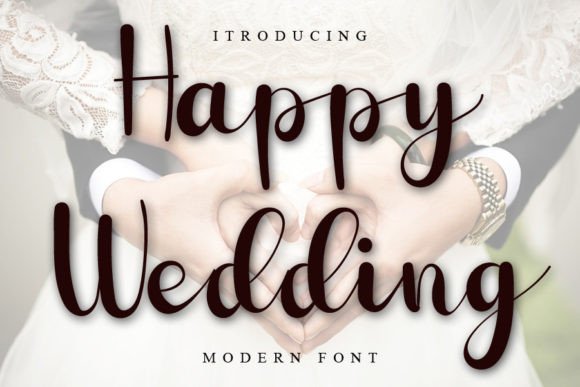
Adding a Touch of Love to Your Designs
Remember that moment when you saw your partner’s face light up after you proposed? The excitement, the joy, and the tears of happiness all came flooding back. It’s moments like these that make us want to create something truly special. Whether it’s a wedding invitation, a save-the-date card, or a heartfelt message, we want to make it perfect.
That’s where the Happy Wedding Font comes in – a fresh and beautiful handwritten script font that’s sure to add a touch of love to your designs. This lovely font is designed to bring a smile to your face and make your projects truly unforgettable. For designers, the Happy Wedding Font is a valuable asset, allowing you to create unique and personalized pieces that speak directly to the heart.
Key Features of Happy Wedding Font
- Unique Characteristics: Happy Wedding Font features elegant, cursive script with a touch of whimsy, making it perfect for wedding invitations, stationery, and other celebratory designs.
- Font Weight and Style: Happy Wedding Font comes in three font weights (Light, Regular, and Bold) and two font styles (Regular and Italic).
Designer Review: Happy Wedding Font
Overall, I think the Happy Wedding Font is a sweet and endearing choice for wedding invitations and other celebration materials. ✨ The font’s playful and cheerful vibe perfectly captures the joy and excitement of the special day.
The font’s key features include:
- Hand-drawn, whimsical feel that adds a personal touch
- Various ligatures and swashes to create a sense of movement and flow
- Support for multiple languages, making it a great choice for international weddings
- The font may not be the best choice for formal or traditional wedding invitations, as it has a more casual feel
- The font’s complexity can make it difficult to read at small sizes or in certain contexts
- The font does not include a wide range of punctuation and symbol options, which may limit its usability
Overall, I think the Happy Wedding Font is a lovely choice for those looking for a playful and whimsical font for their wedding materials. While it may have some limitations, it’s a great option for couples who want to add a personal touch to their celebration.
The Happy Wedding Font is ideal for wedding invitations, save-the-dates, and other wedding-related materials. To get the most out of it, use it in combination with other elegant fonts and design elements. Some common use cases include:
- Wedding invitations and save-the-dates.
- Wedding website and social media graphics.
- Wedding stationery and paper goods.